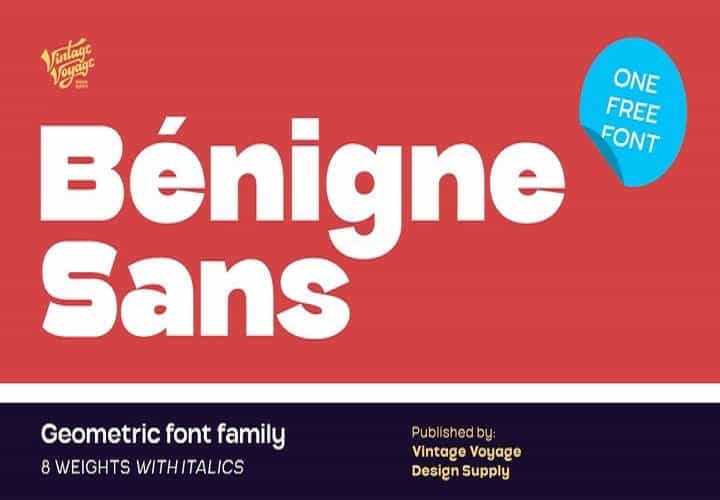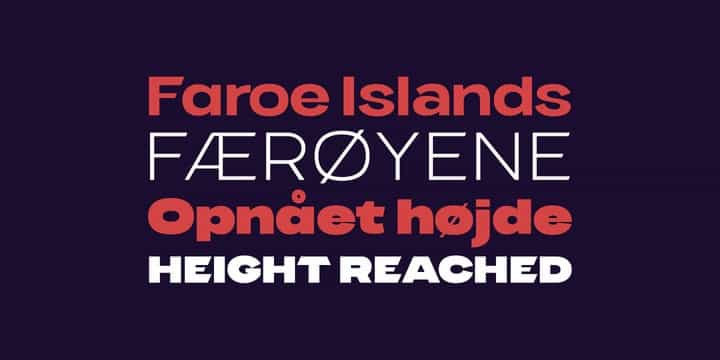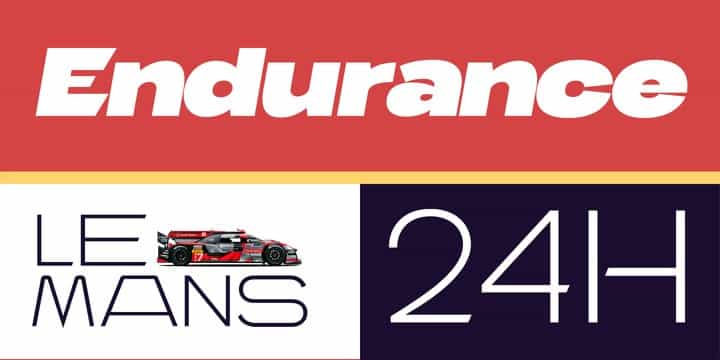
Discover Benigne Sans Serif Font, part of the Sans Serif Display collection—a versatile and unique font perfect for adding a personal touch to your projects. Download it for free and enjoy crafting designs with style, from invitations to social media posts. This font is available exclusively for personal use, giving you the freedom to create without limits. Unlock your creativity with Benigne Sans Serif Font today!
VVDS Benigne Sans is the font family which consists of 8 weights from Thin to Ultra Bold with their matching italics. The balanced and gently Thin or fat and heavy Ultra Bold, with the good wide range of widths which allow this font to be used not only as Headers but also as sub-headers or block texts. In addition to that, I like the way it looks in infographics.